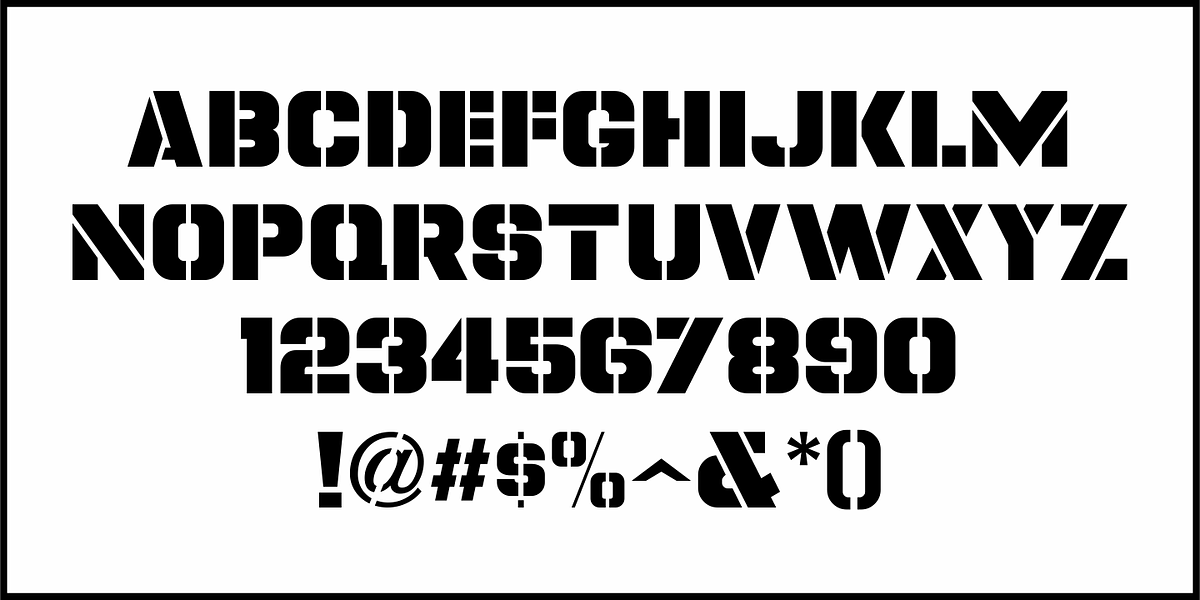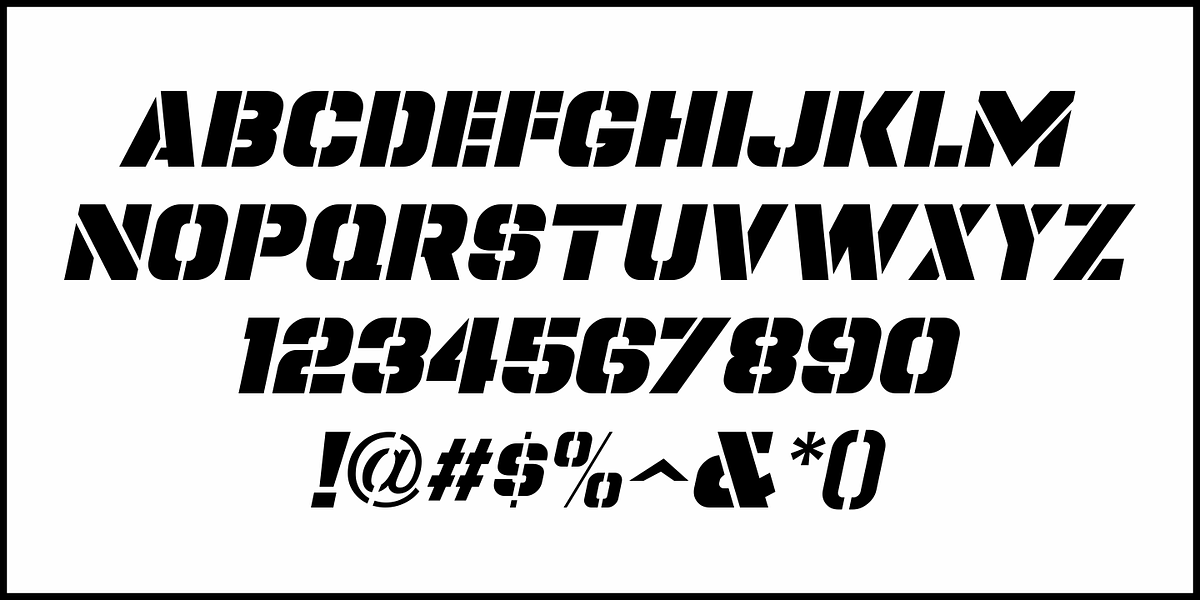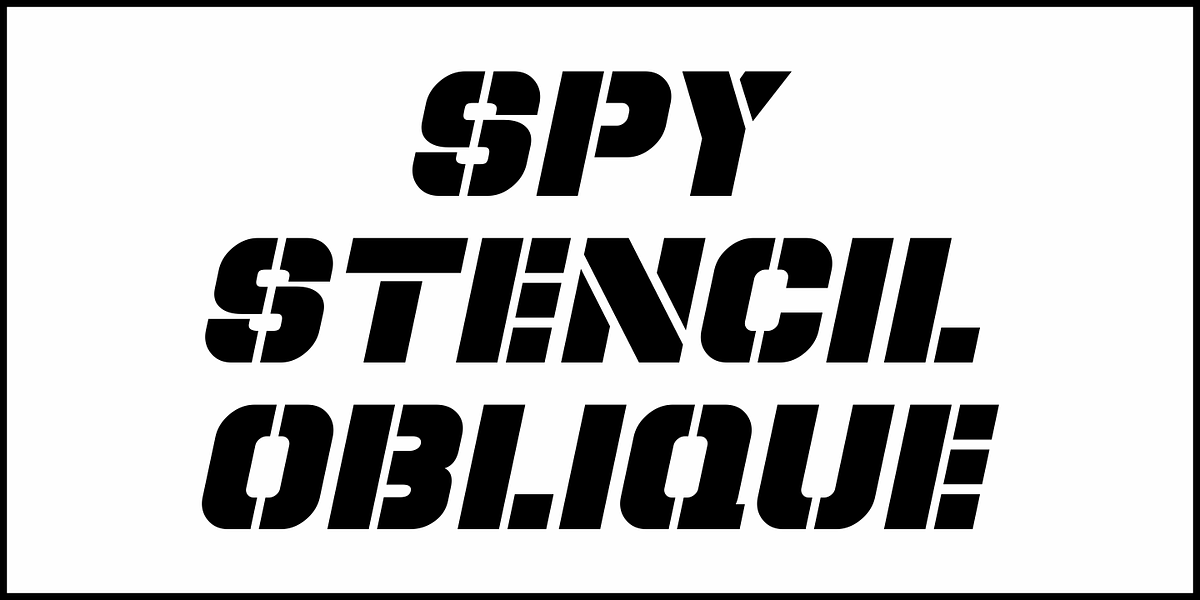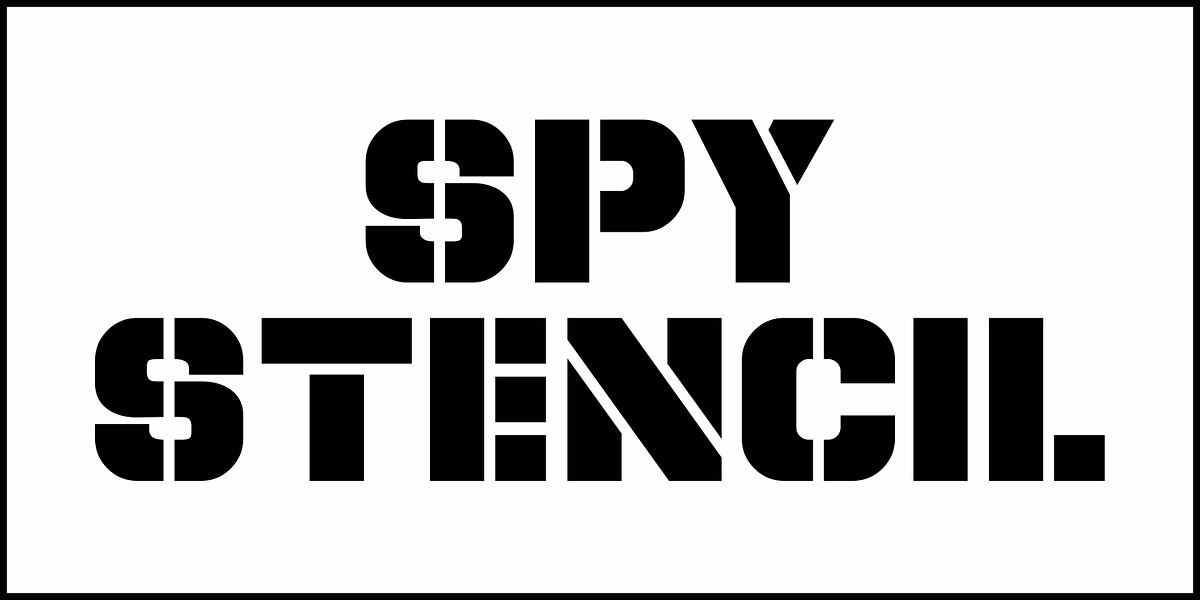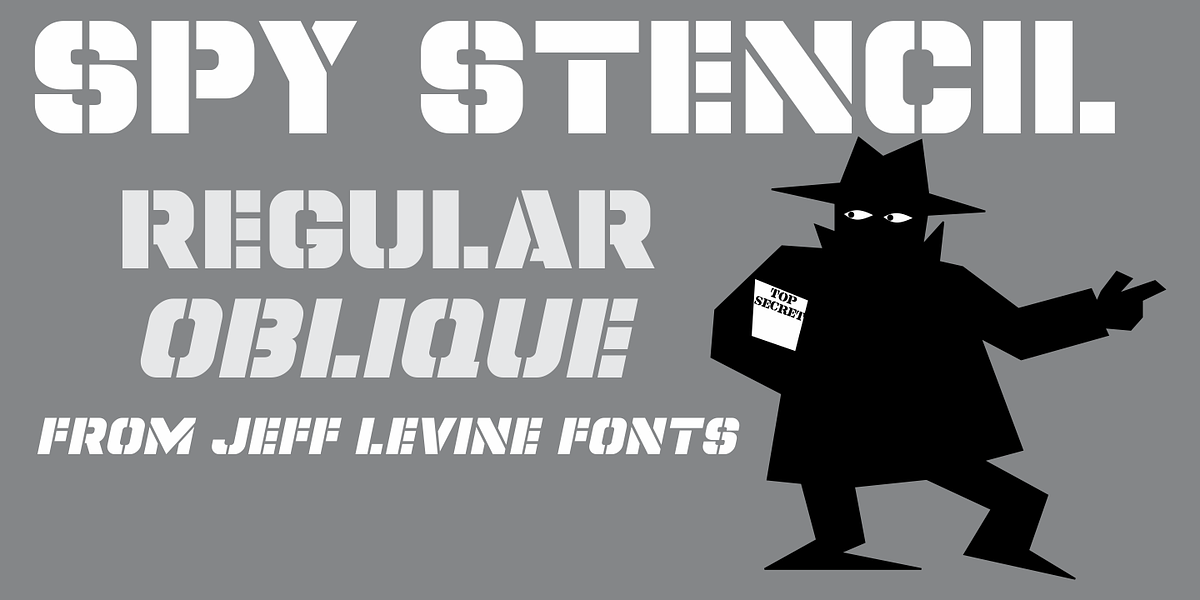
Spy Stencil JNL
Dean Martin starred in four movies as Matt Helm, the titular character in a series of spy novels by Donald Hamilton. Martin’s version of the government counter-agent followed his TV persona – a fun-loving ladies man who (in this case) just happened to be a spy.
The movie poster for 1966’s “The Silencers” has its title hand lettered in an extra bold sans serif stencil style.
This is now available as Spy Stencil JNL in both regular and oblique versions.